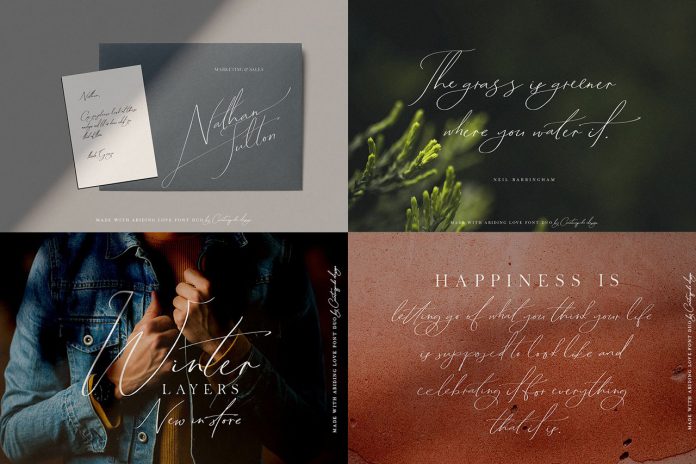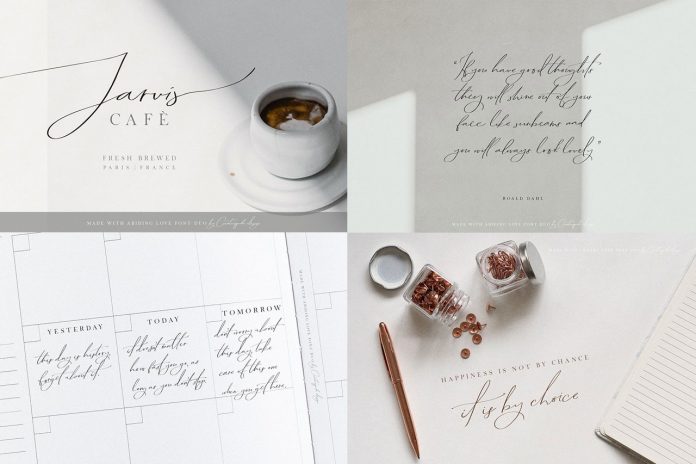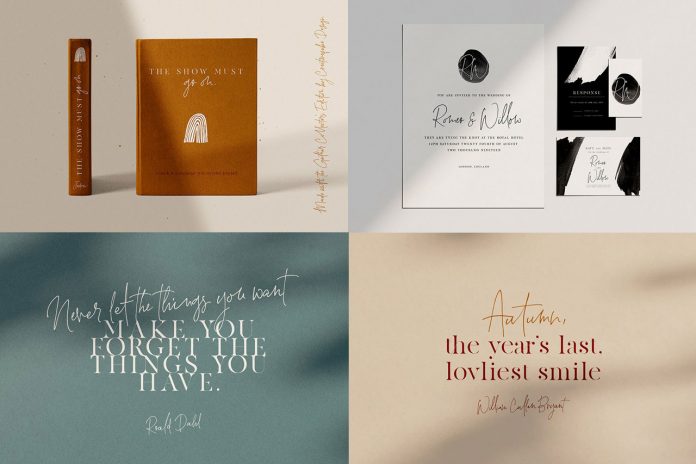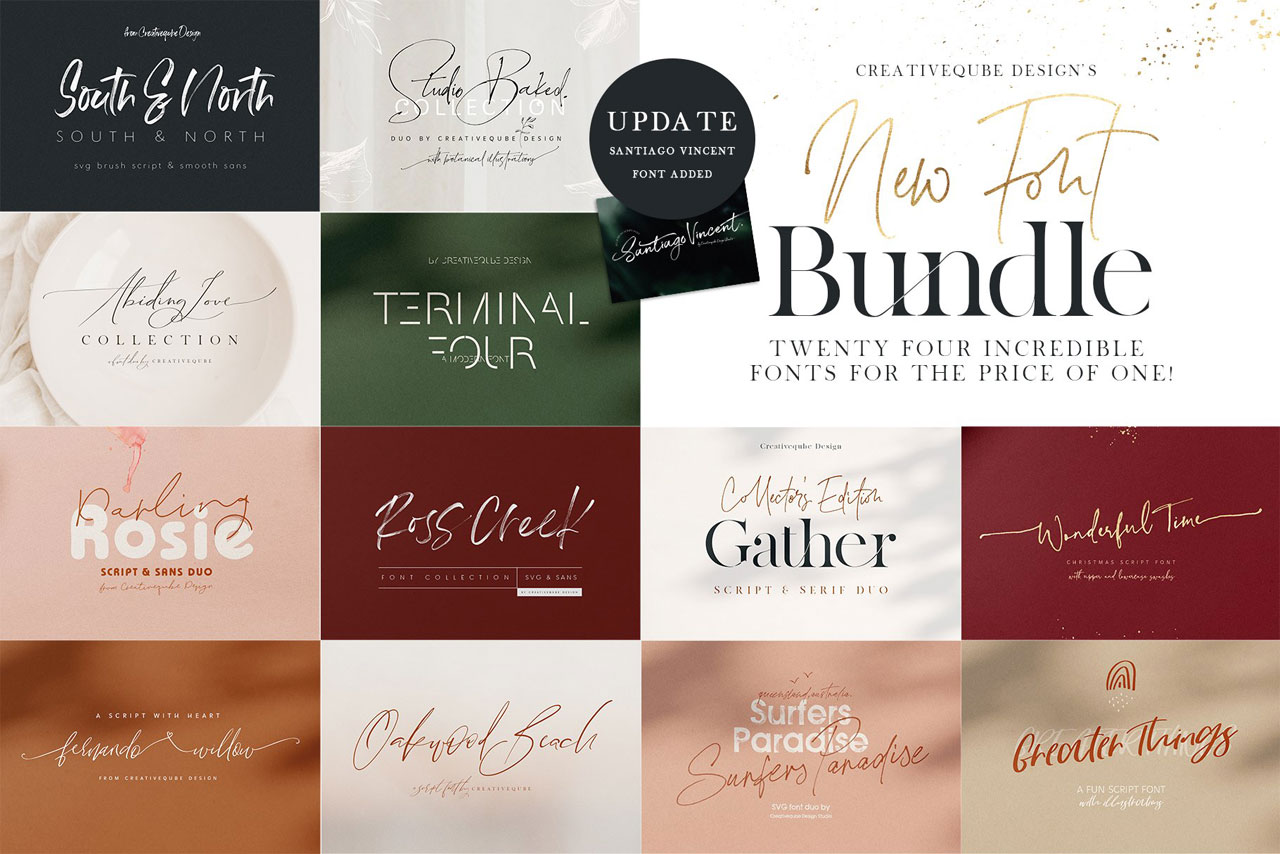
23 font families plus logos and illustrations in one big bundle.
Studio Creativeqube Design has recently published this big fonts bundle containing 23 font families plus a range of bonus elements consisting of several logo templates and illustrations. The selection includes a wide range of different styles including scripts, sans serifs, hand-drawn fonts, etc. You can use these typefaces for different projects such as invites, stickers, fabrics, cushions, blogs, branding, logos, posters, packaging, birth announcements, photo overlays, wall art, quotes, printables, bags, shirts, etc.